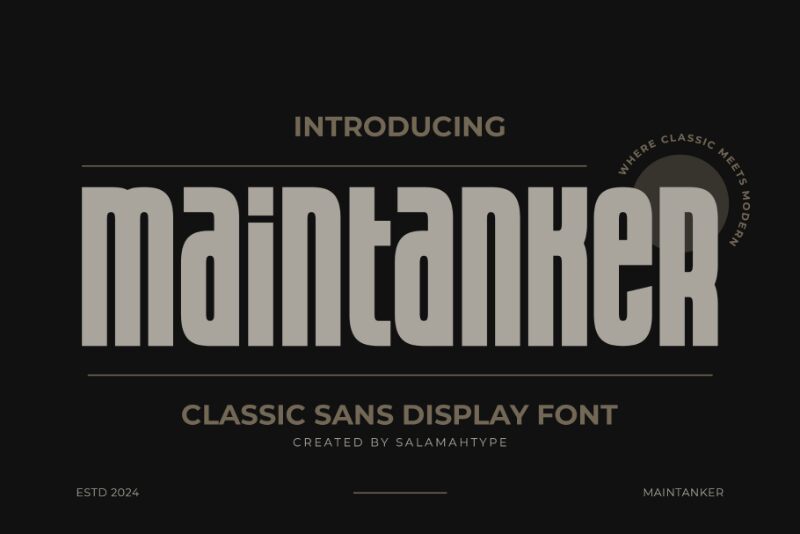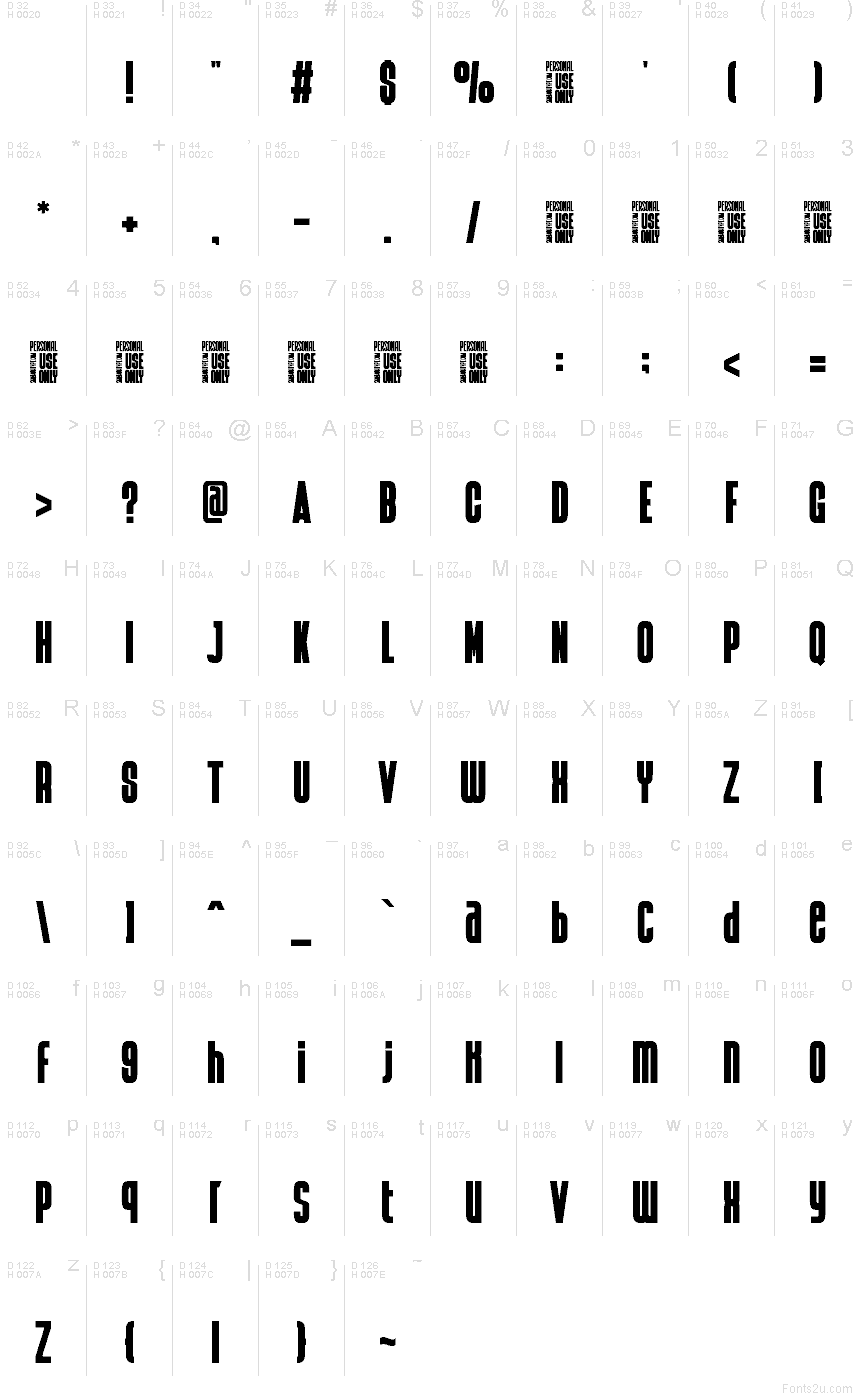
Maintanker by Salamahtype is a free ultra-condensed sans serif with towering letters and a stark poster-cut silhouette. Broad vertical strokes press against narrow internal gaps, giving the face an intense, industrial look. The shapes are severe and economical.
Music posters are its strongest setting, where the compressed build can suggest loud amplifiers, packed venues, and oversized stage graphics. It also fits fashion branding, magazine covers, and merchandise, especially when photography or illustration repeats the lettering's long vertical bands.